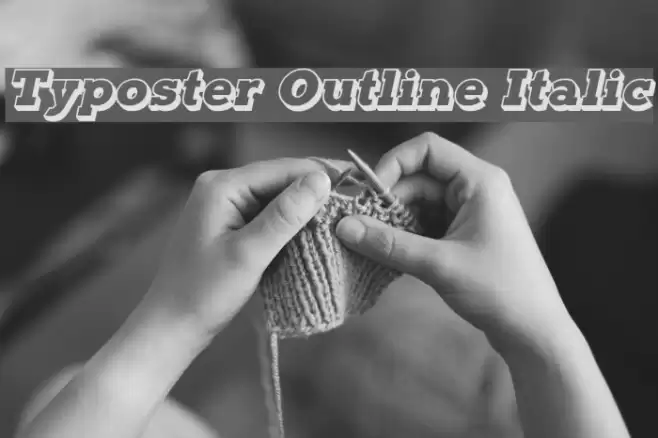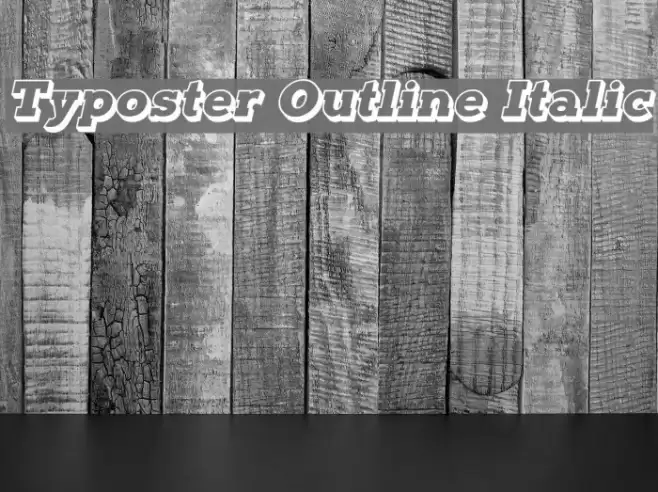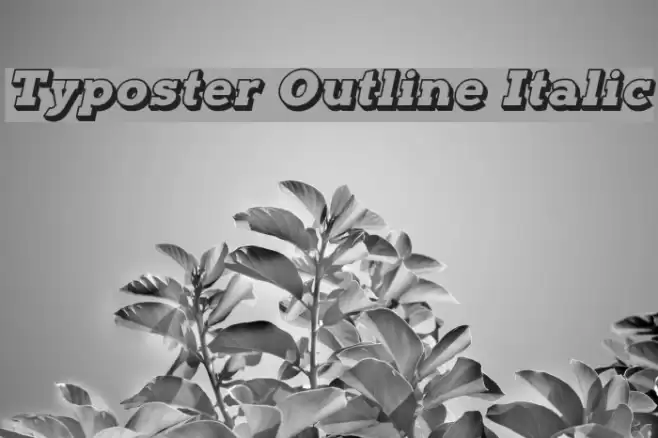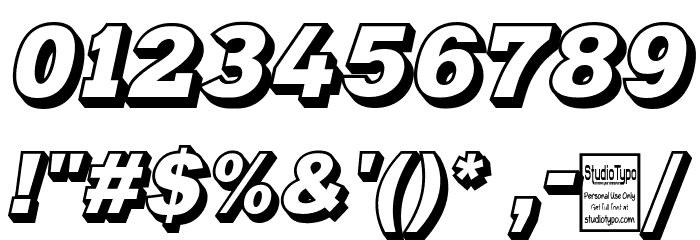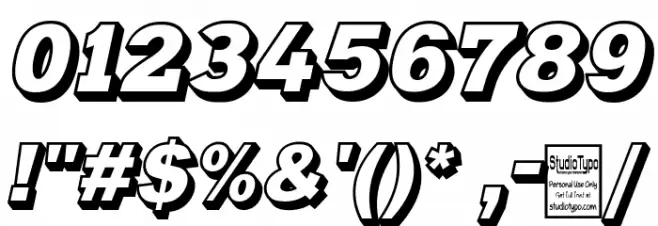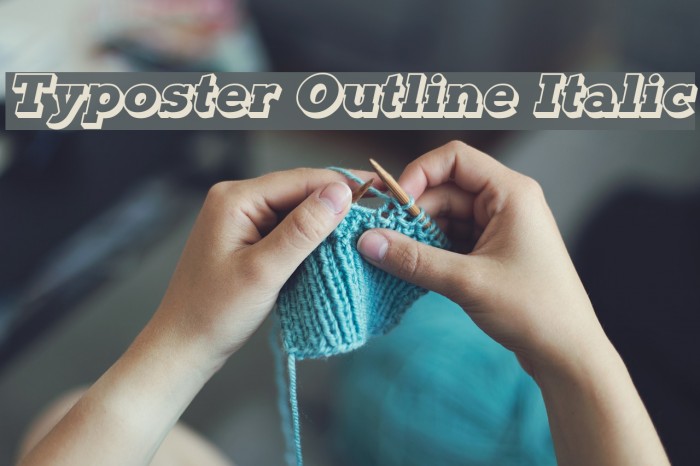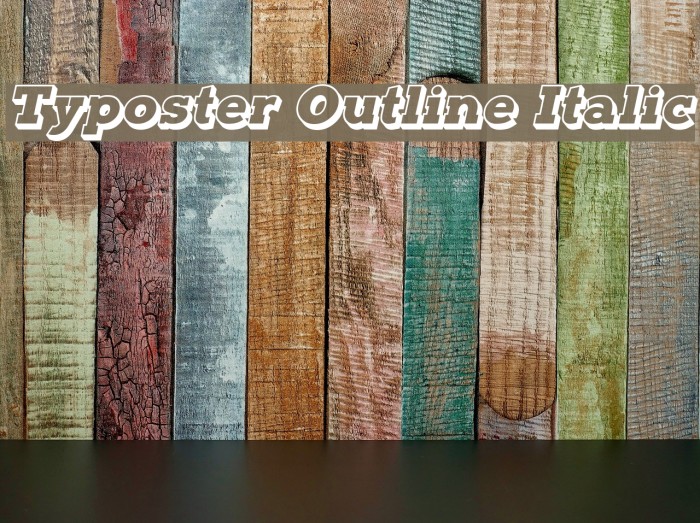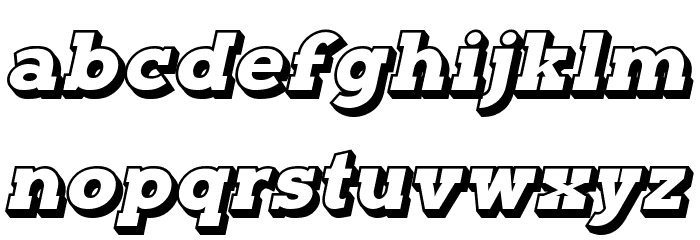
Typoster Outline Italic Font
Typoster Outline Italic Description
This font features a bold, outlined style with a distinct italic slant, giving it a dynamic and energetic appearance. The uppercase and lowercase letters are well-defined with a consistent stroke width, creating a strong visual impact. The numbers and special characters maintain the same bold outline, ensuring uniformity across all characters. The font's playful yet assertive design makes it suitable for attention-grabbing headlines and creative projects. Its outlined nature adds a layer of depth, making it stand out in various design contexts.
Bold, outlined, italic font with a dynamic and energetic style from Uncategorized fonts.